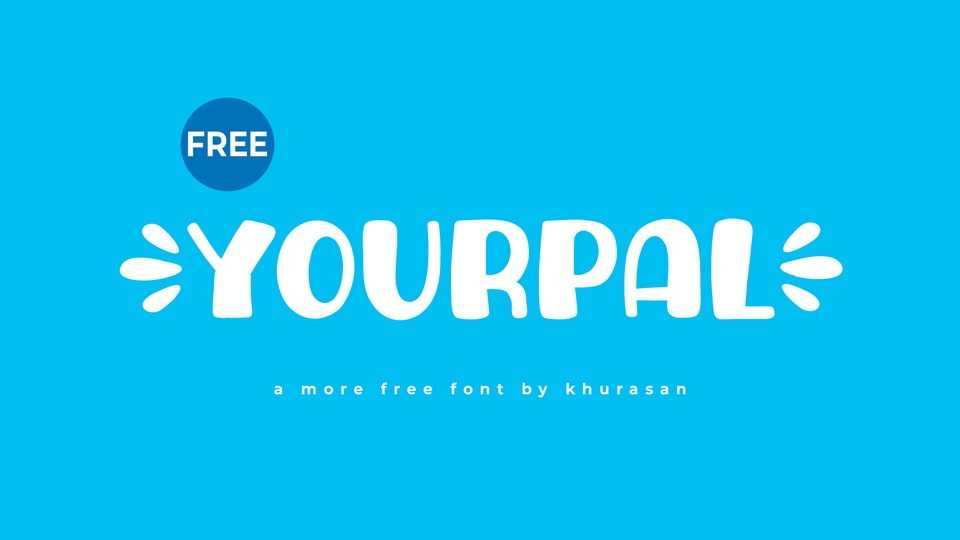
Download Yourpal font, a friendly, soft, and approachable display typeface designed to feel warm and welcoming. With its rounded shapes, smooth strokes, and gentle rhythm, it reads like a smile in typographic form—casual, kind, and easygoing.